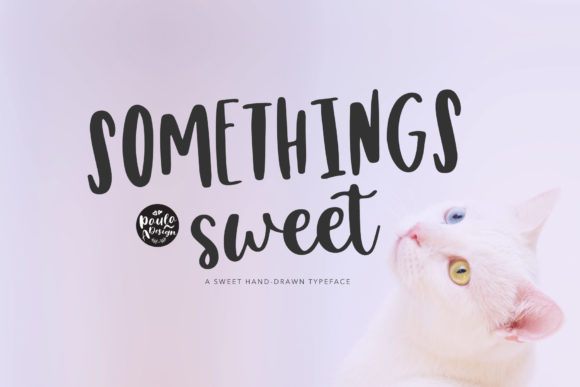
Introducing the Somethings Sweet Font - a typeface that evokes the charm and authenticity of handwritten words. This script font, meticulously crafted by Studio_Art, seamlessly blends elegance and playfulness, making it the perfect choice for adding a personal touch to your creative endeavors.
With its graceful curves and organic flow, the Somethings Sweet Font exudes a natural handwritten aesthetic that captures the essence of heartfelt messages and artistic expression. Its versatility knows no bounds, making it a font that can effortlessly elevate any project you set your heart upon.
Whether you're a creative professional seeking to add a touch of handwritten elegance to your branding or a passionate crafter desiring to infuse your projects with a personal touch, the Somethings Sweet Font is the perfect companion for your creative journey.
Indulge in the charm of handwritten beauty, and let your words dance across the page with the Somethings Sweet Font. Its delicate strokes and enchanting character will transform your designs into captivating works of art, leaving a lasting impression on all who behold them.
Choose the Somethings Sweet Font and unlock a world of creative possibilities. Let your words flow freely, and let the beauty of handwritten elegance captivate your audience.